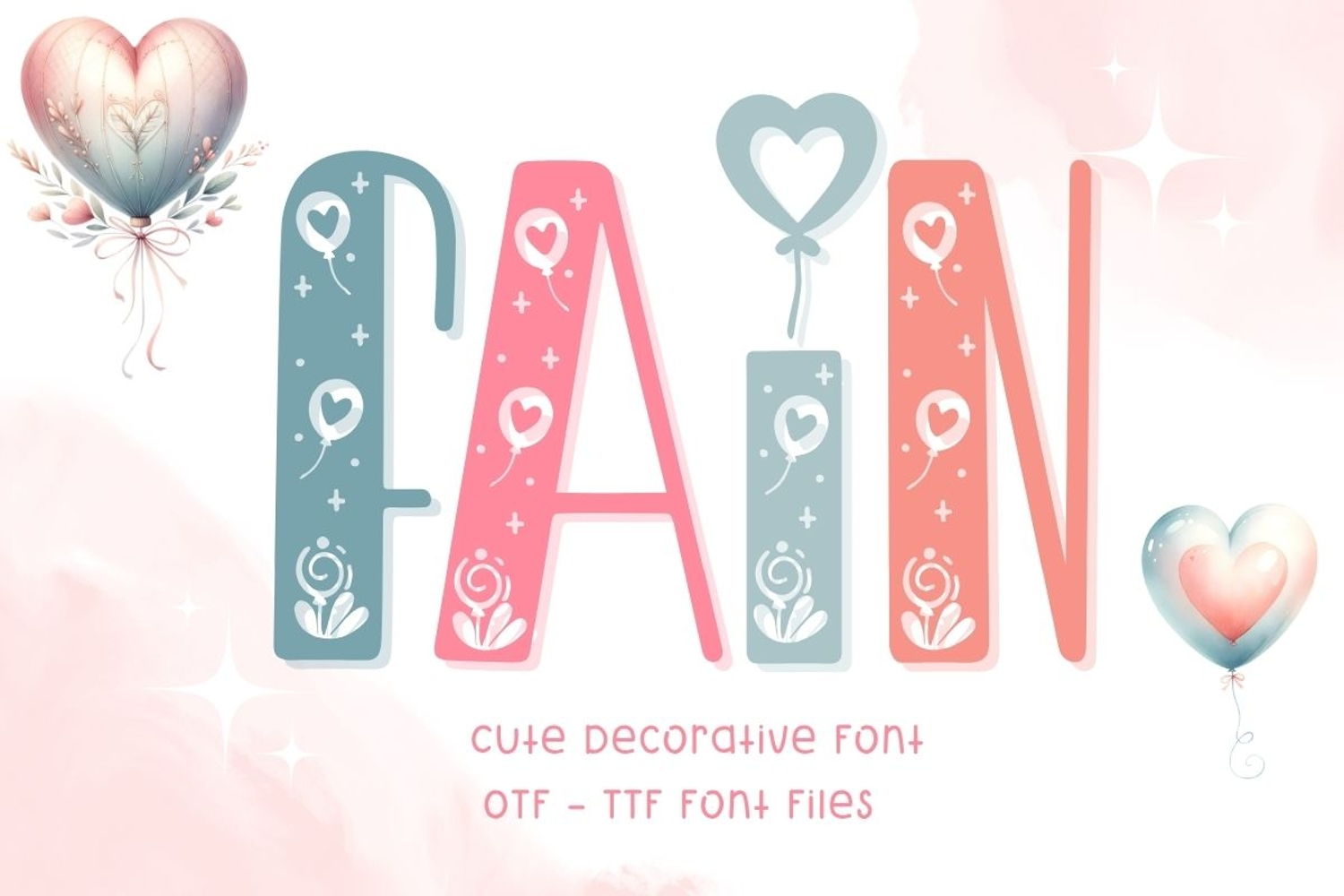
Fain is a cute decorative Valentine font featuring tall playful letters with heart balloons, tiny floral details, sparkles, and sweet romantic accents inside each character. The font has a fun handcrafted look with a lovely seasonal style, making it perfect for Valentine’s Day designs, love-themed crafts, and cheerful gift projects.